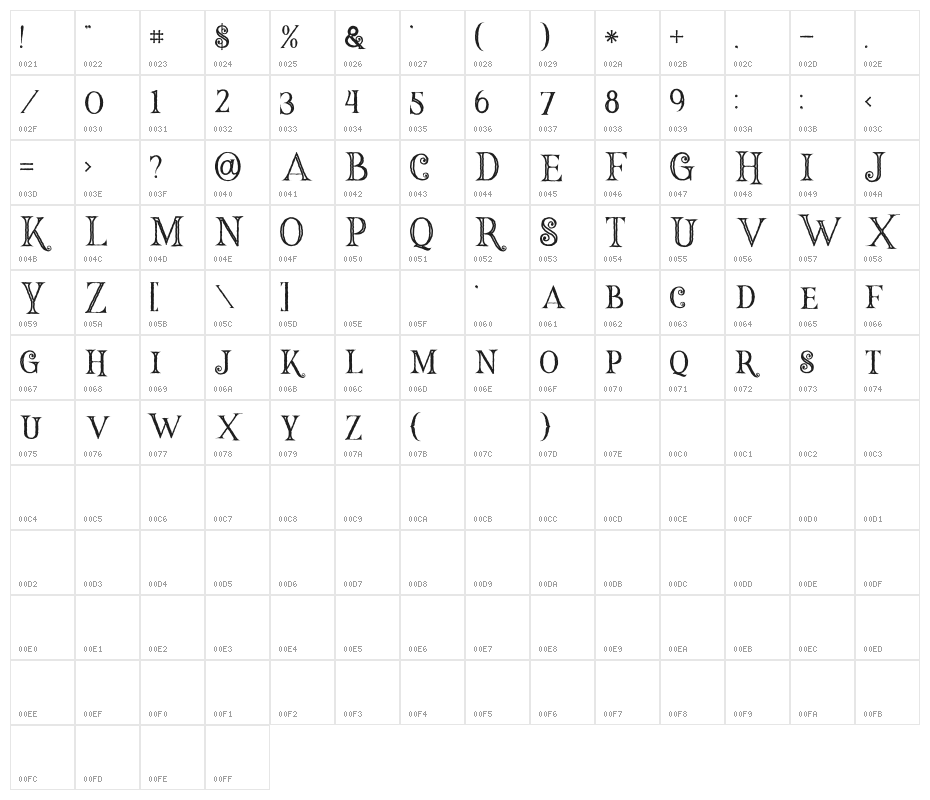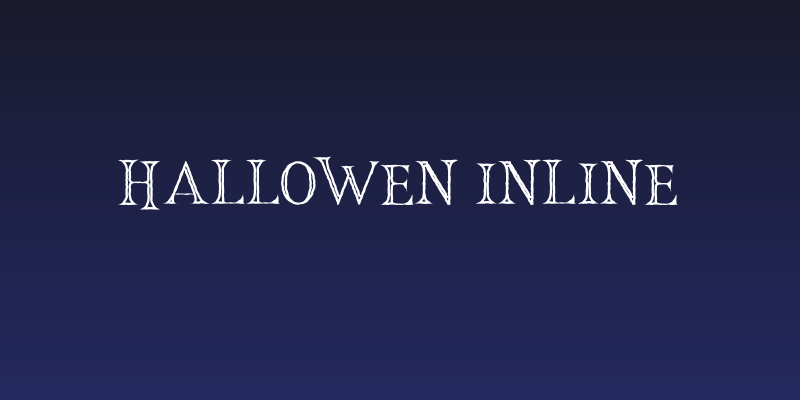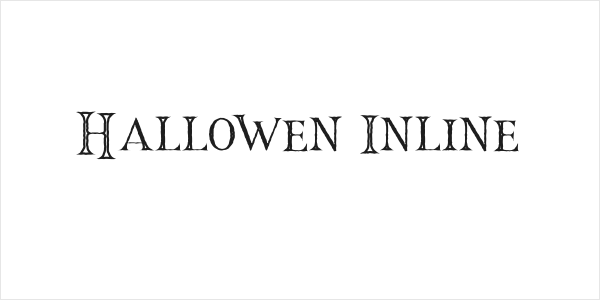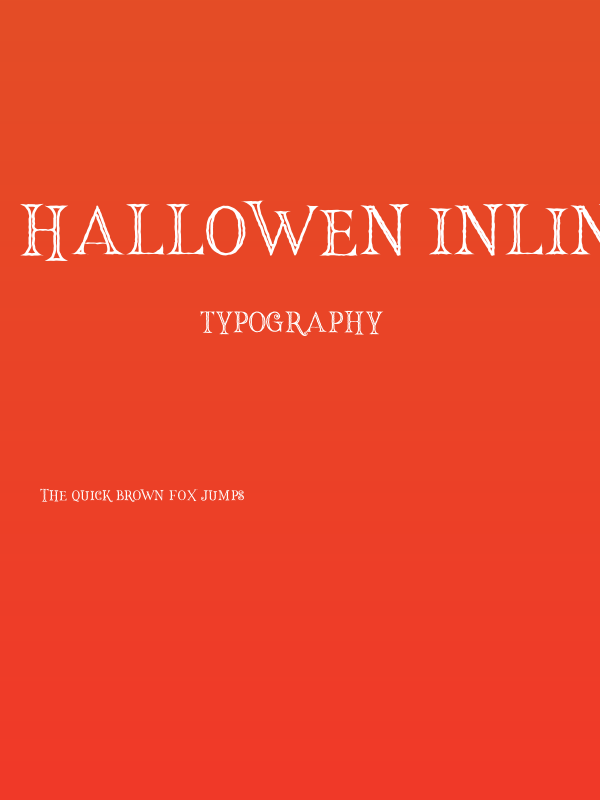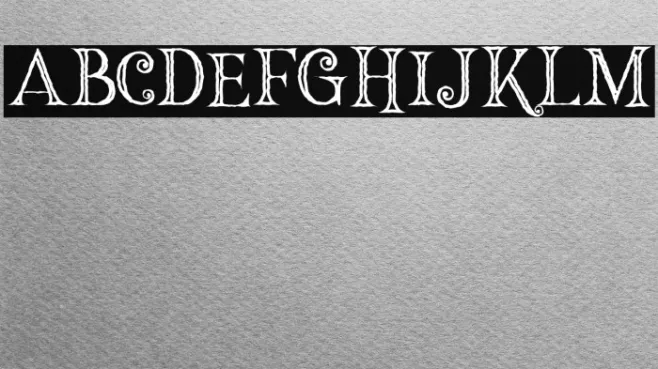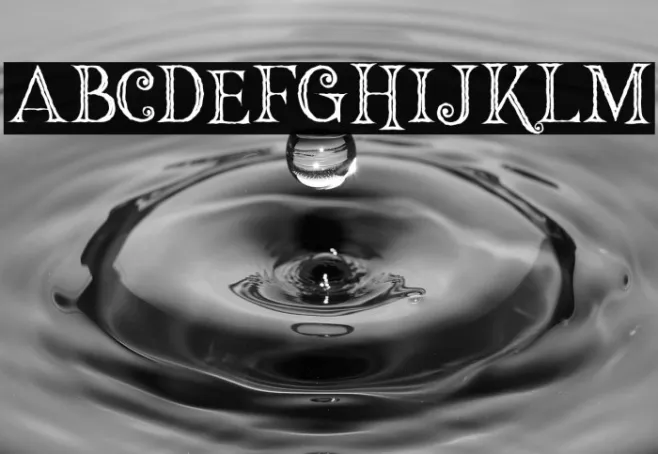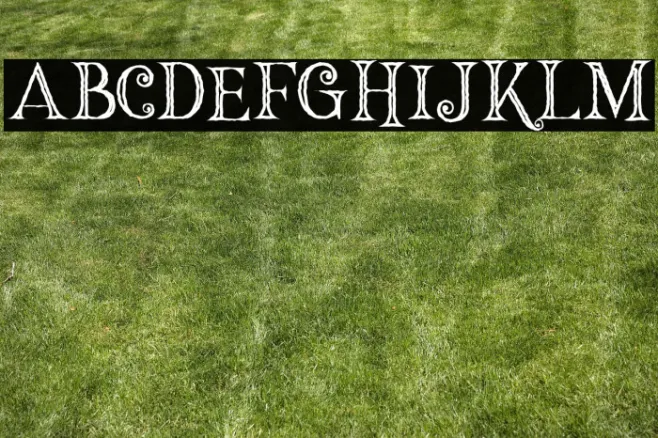
Hallowen Inline Font
Hallowen Inline Description
This font features a decorative and whimsical style, characterized by its playful and slightly spooky appearance. The letters have an inline design with a hand-drawn feel, incorporating swirls and curls that add a unique flair. The uppercase and lowercase letters maintain a consistent theme, with the uppercase being more pronounced and the lowercase slightly more subdued. Numbers and special characters follow the same decorative style, ensuring a cohesive look across all elements. The font's design is reminiscent of a Halloween or fantasy theme, making it ideal for projects that require a touch of mystery or enchantment.
| Proposed Projects | Ideal for Halloween-themed invitations, fantasy book covers, decorative posters, and playful branding. |